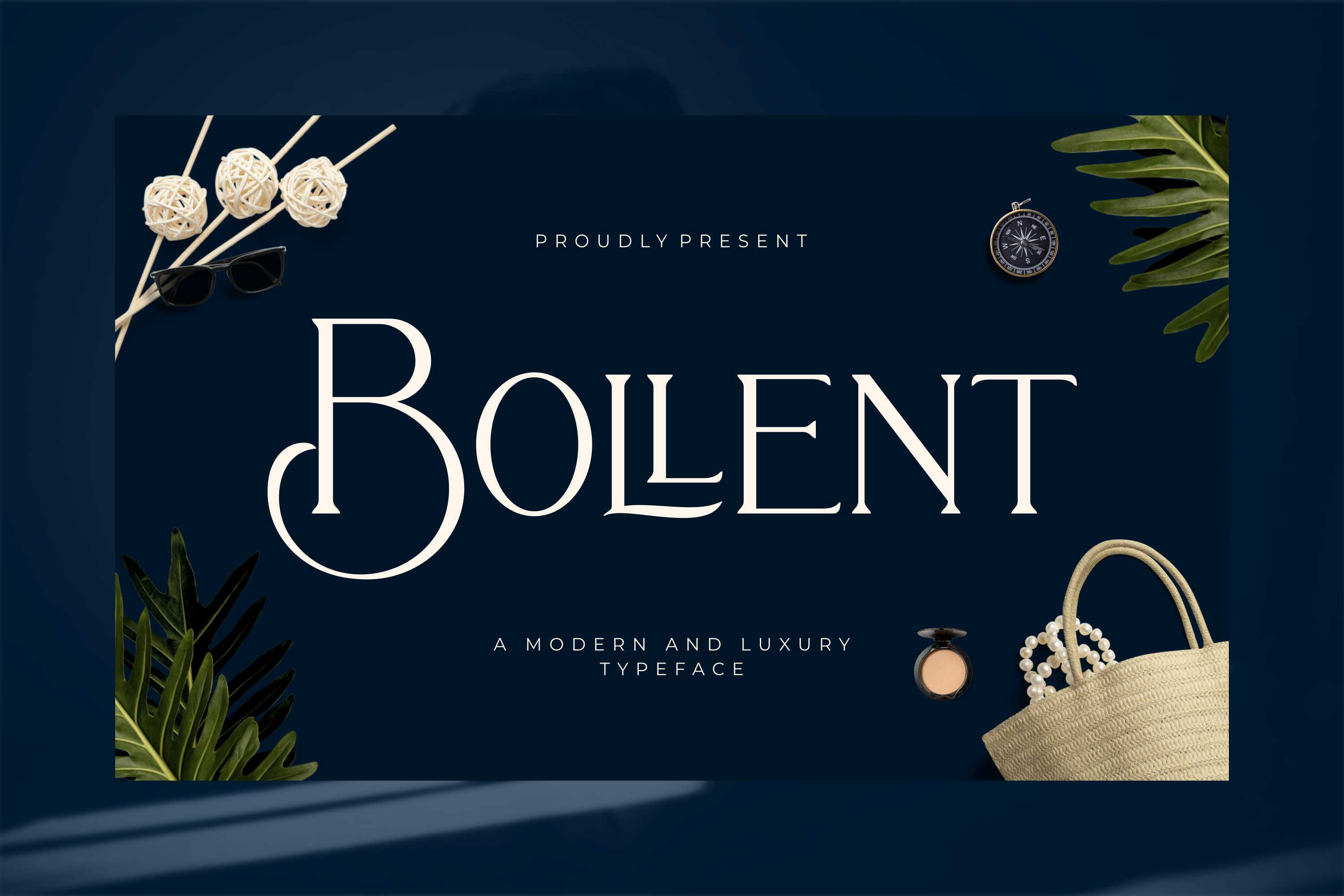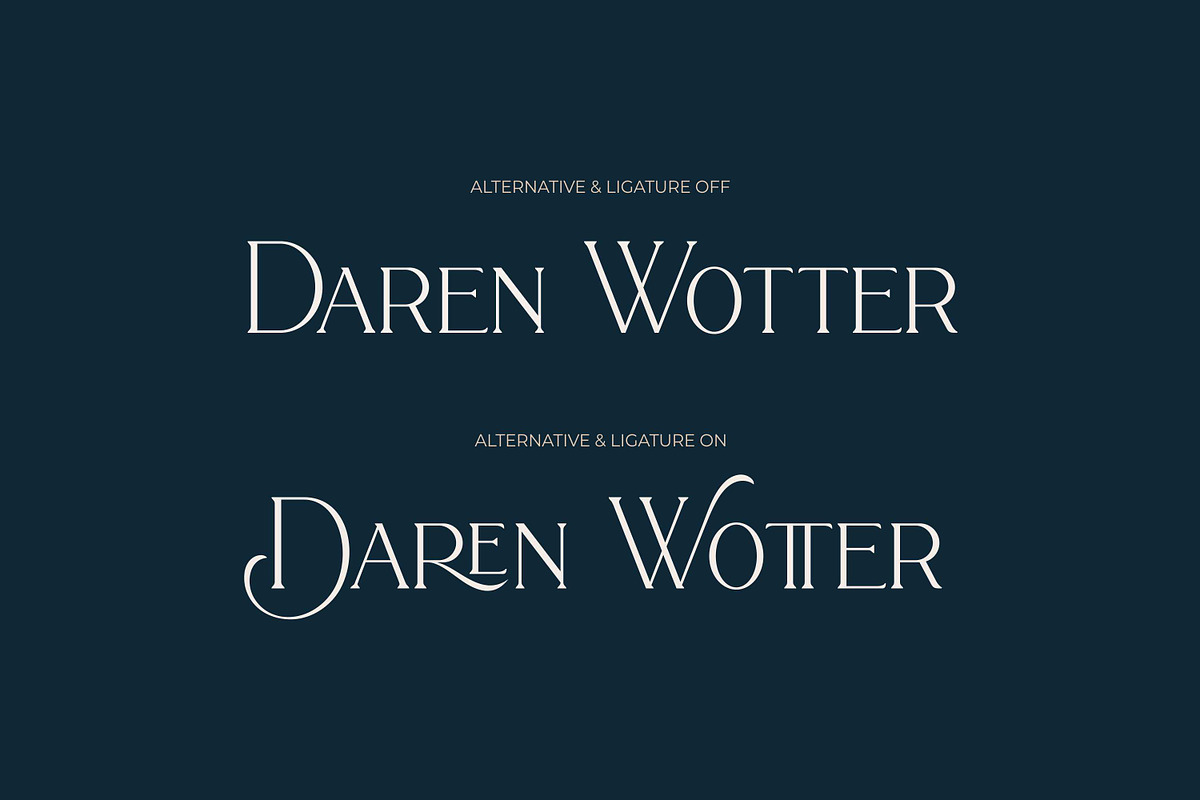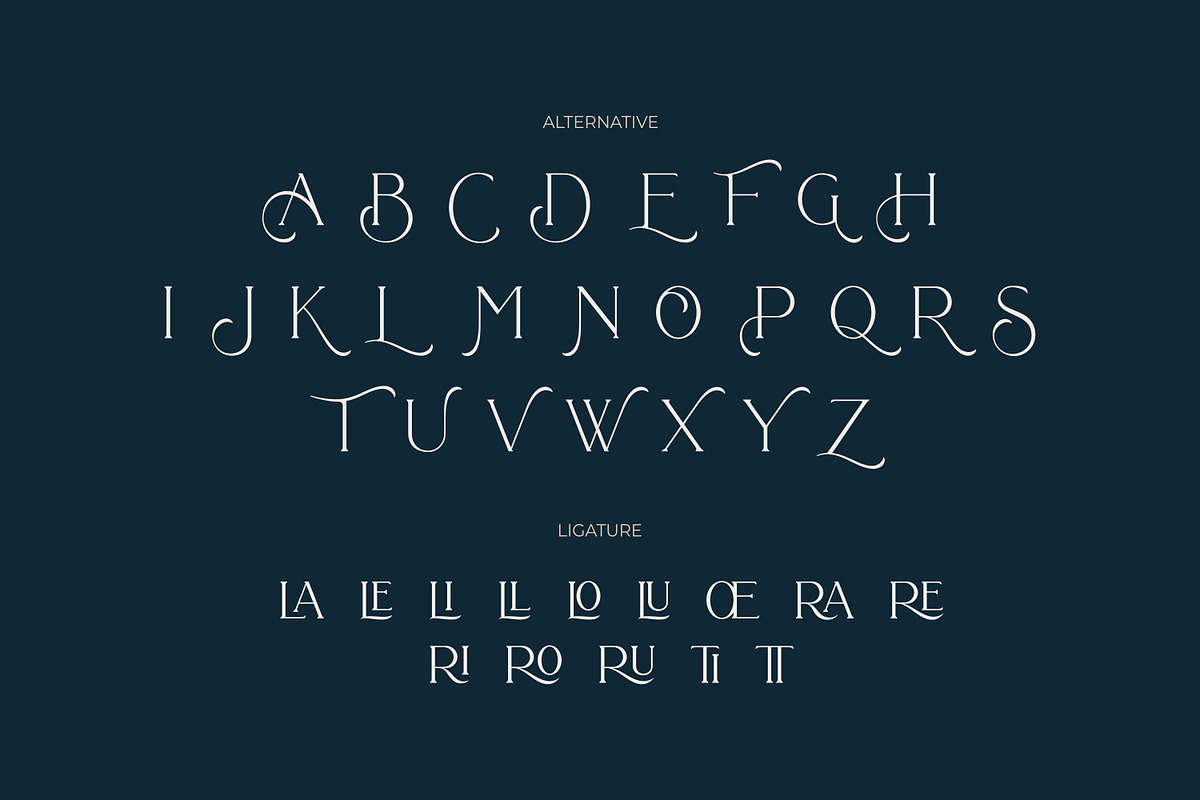
Bollent - Modern And Luxury Typeface
Bollent is luxurious elegant and modern typeface are suitable for wedding, fashion, beauty content, packaging, logo, branding and many more. Bollent also has ligature and alternates which makes it easy for you to create a logo for your personal branding and your business beautifully.